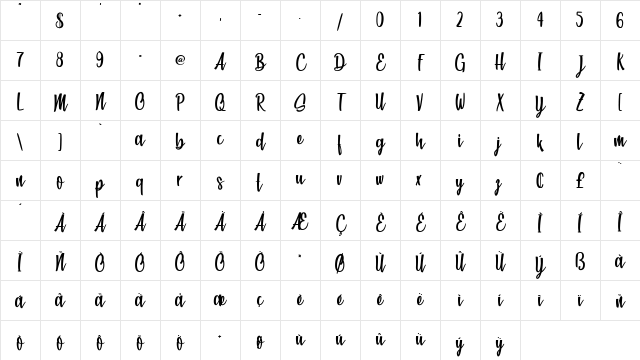
Complete Beach Society Light Regular glyph index. Displaying only characters natively supported by Beach Society Light Regular font.
Beach Society Light is a composed and adaptable typeface that performs quietly and consistently across a wide range of design contexts. Its slender proportions lend an understated elegance to any composition.